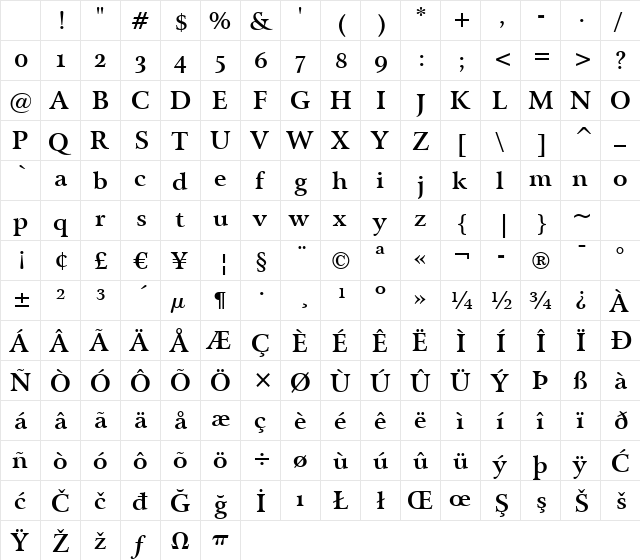
Complete Arrus OSF BT Bold glyph index. Displaying only characters natively supported by Arrus OSF BT Bold font.
Arrus OSF BT is a composed and adaptable typeface that performs quietly and consistently across a wide range of design contexts. Its bold stroke weight gives it real presence on the page.
Pro Tip: Use Arrus OSF BT in both headline and body roles to test its range before committing to a single application.